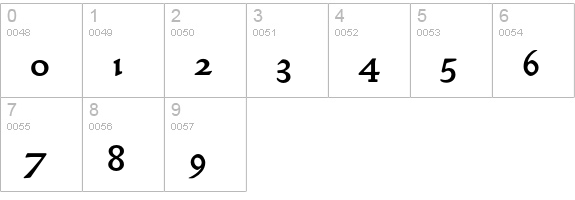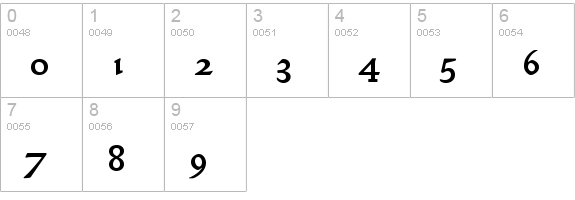
GoldenTypeSCEF-Bold Font Details
GoldenTypeSCEF-Bold is a strong, high-contrast variant in the GoldenTypeSCEF typeface family \xE2\x80\x94 well suited to headlines, attention-grabbing titles, and strong calls-to-action.
GoldenTypeSCEF-Bold font is a striking display typeface that exudes elegance and sophistication. Its bold and powerful letterforms make it perfect for eye-catching headlines, logos, and branding projects. The font features a unique blend of sharp angles and graceful curves, creating a visually stunning look that commands attention. What sets GoldenTypeSCEF-Bold font apart is not just its exquisite design, but also the fact that it is available for free download at FontsMarket.com. This means you can easily access this premium-quality font without any cost, making it a valuable addition to your font collection. Whether you're a designer looking to make a statement or a business owner seeking a distinctive visual identity, GoldenTypeSCEF-Bold font offers a versatile and stylish solution that is just a download away.